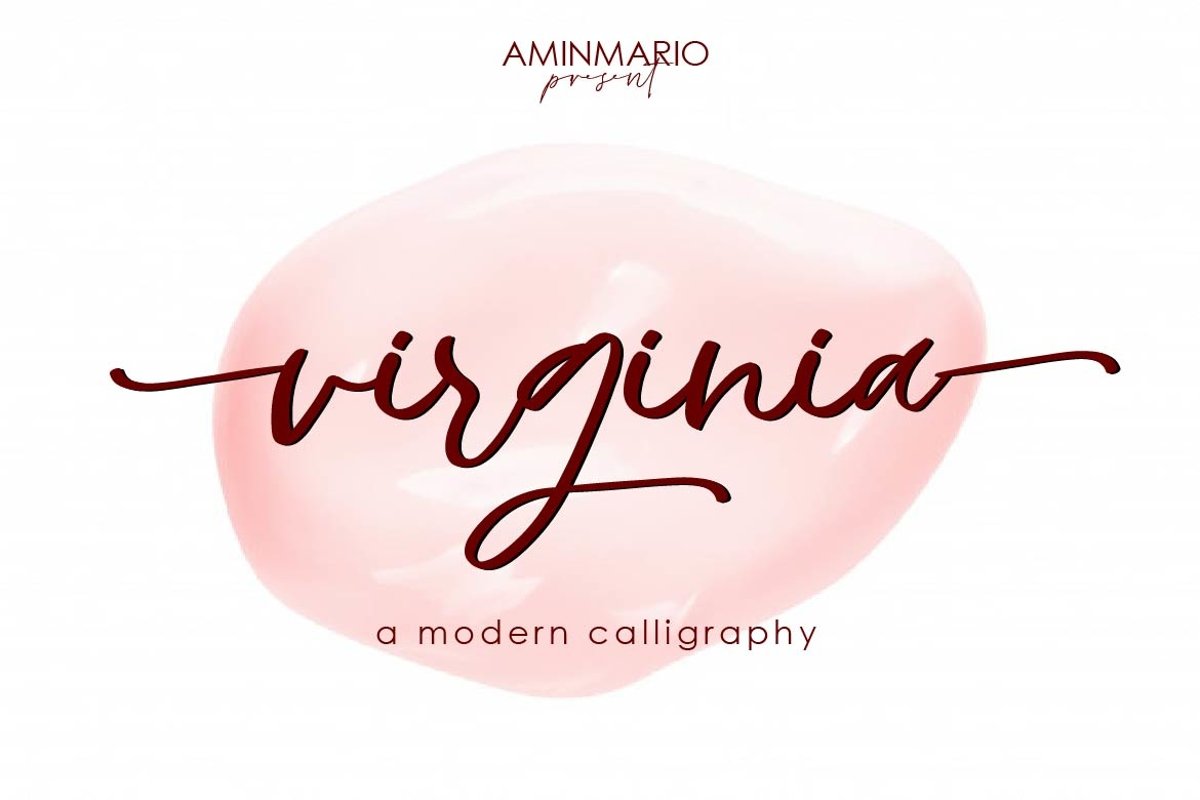
virginia
Effortlessly take your branding to the next level with Virginia Font.
Virginia Font is a modern calligraphy, full of personality and curves. This font was designed using quick strokes to create natural handwritten, to give the font a natural look in a digital world.
Perfect for any awesome project that need hand writing taste.This is suitable for logos, watermarks on photography, signatures, branding, advertisement, quotes, invitations, stationery, wedding design,album covers, business cards, clothing, magazines, posters, and more!
As usual ,the font comes with many opentype features such as Beginning and Ending Swash. Also support multilingual. You can access all those alternate characters by using Opentype or Glyph program such as Adobe Illustrator cs,Adobe Photosop cc, Adobe InDesign, etc.